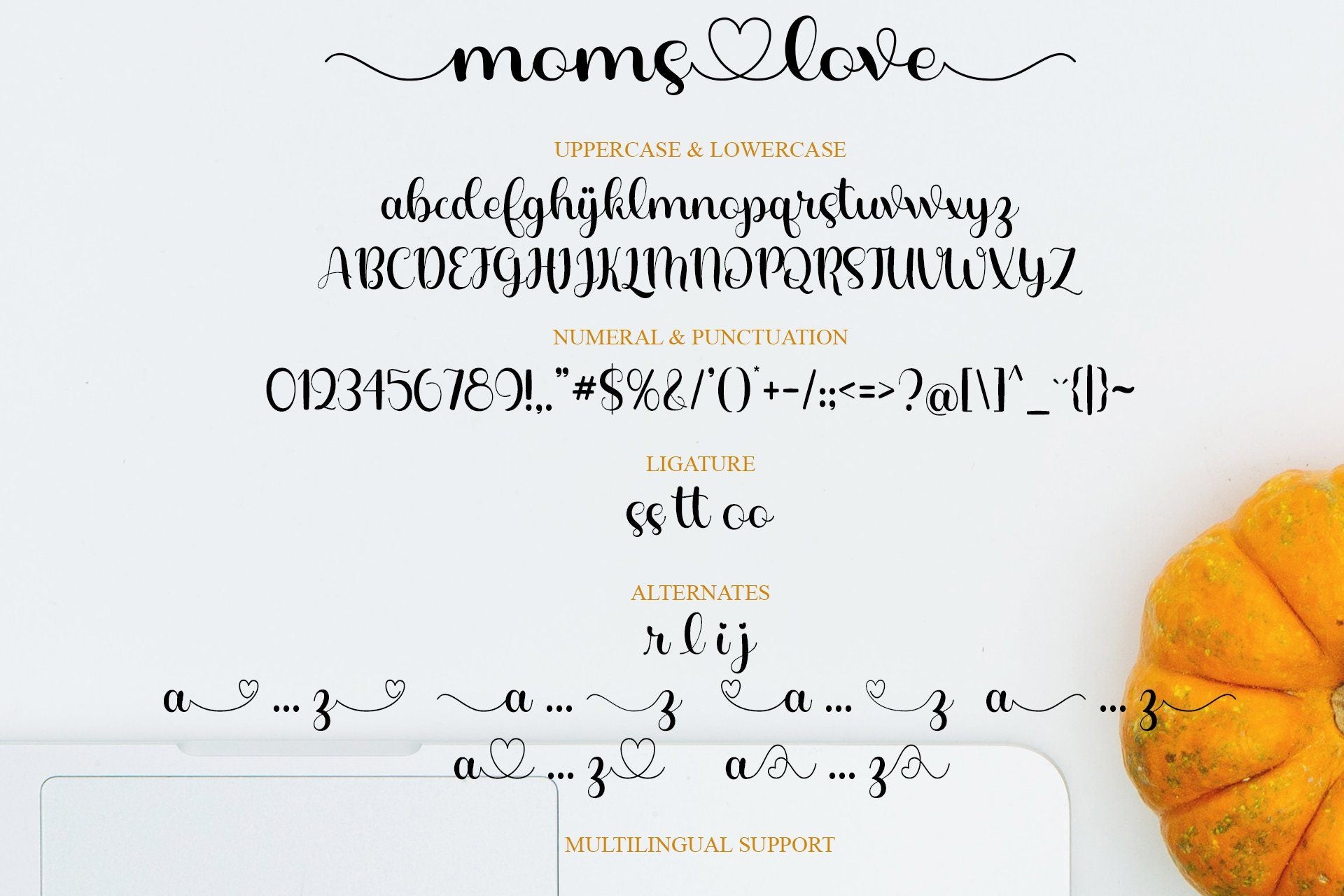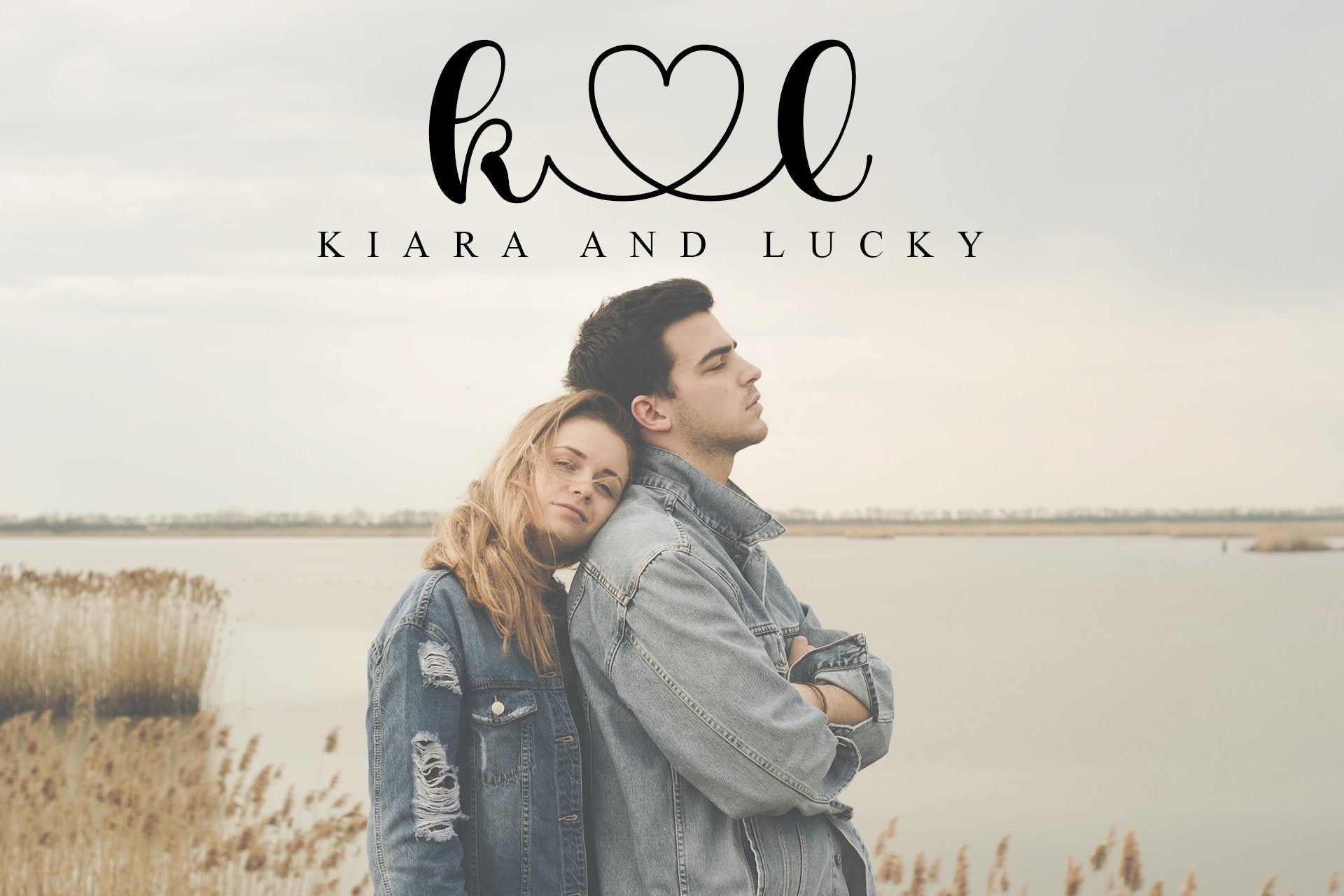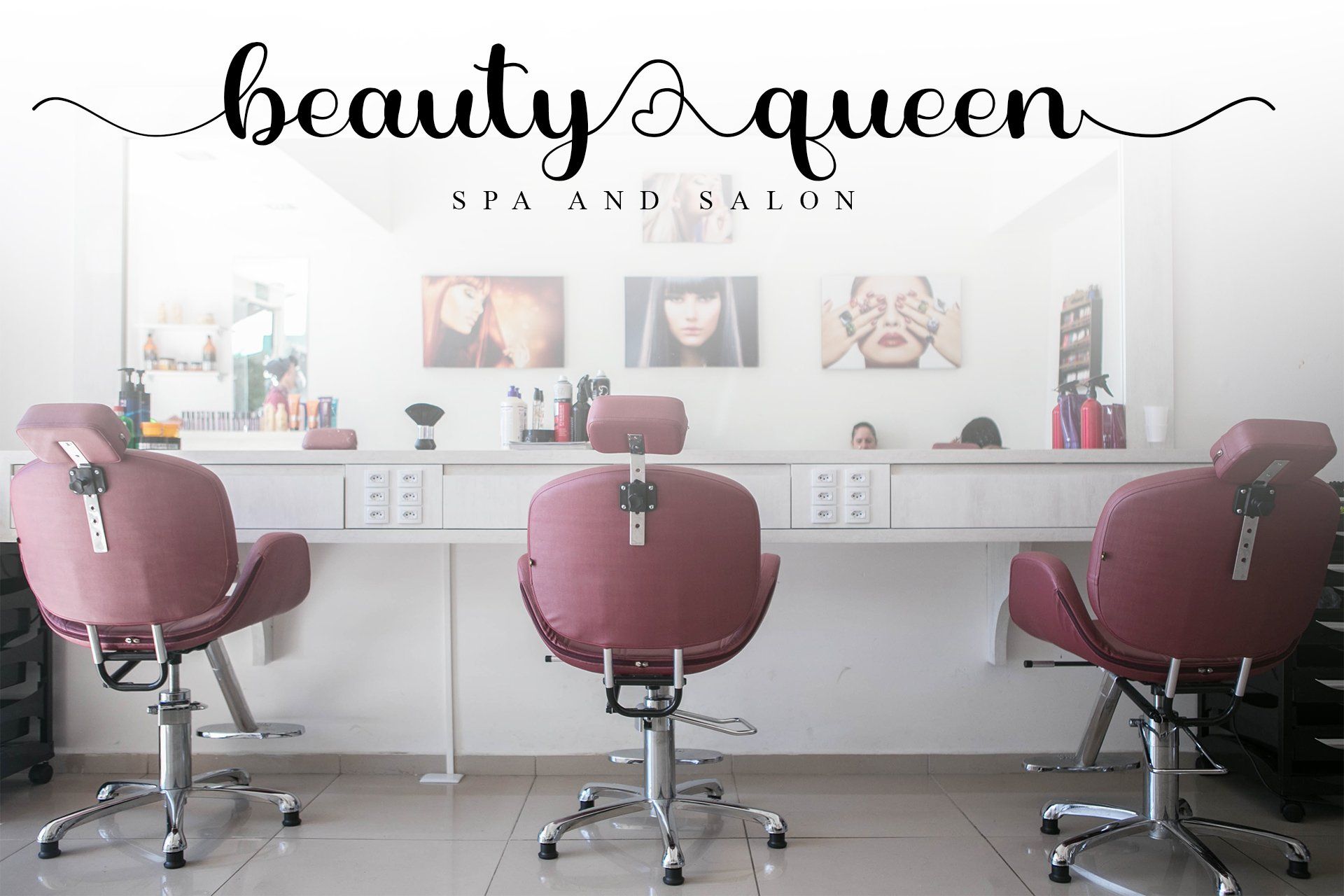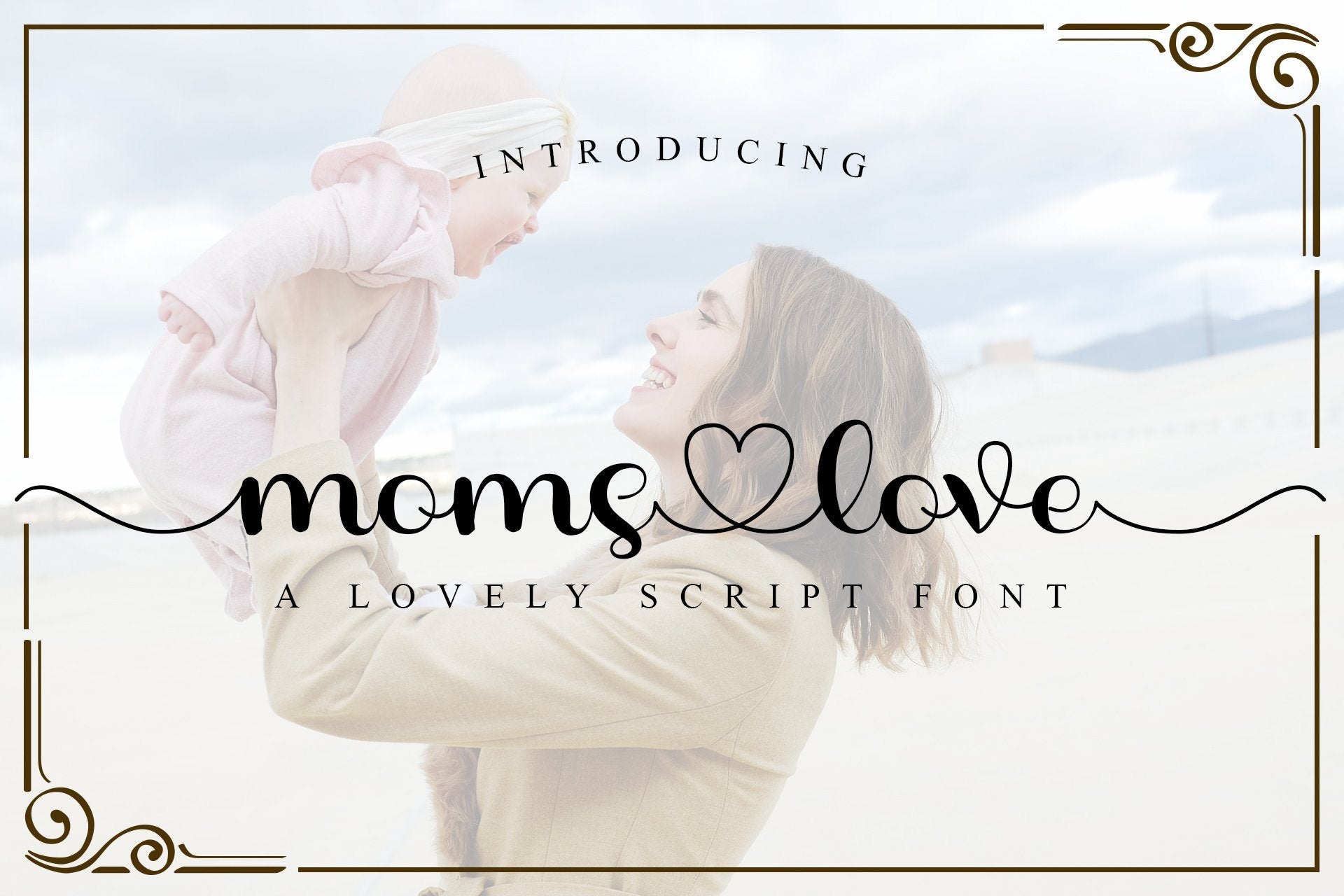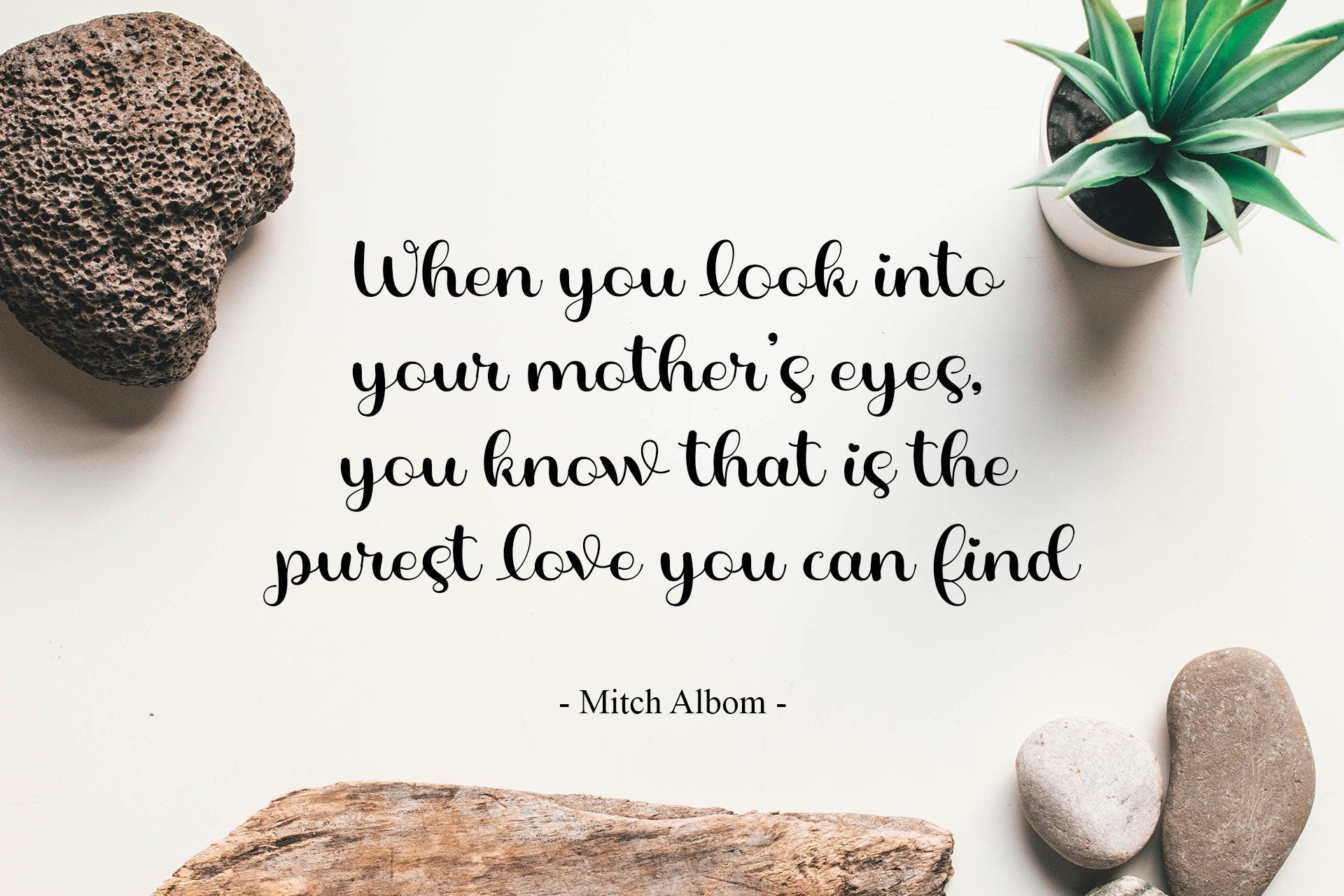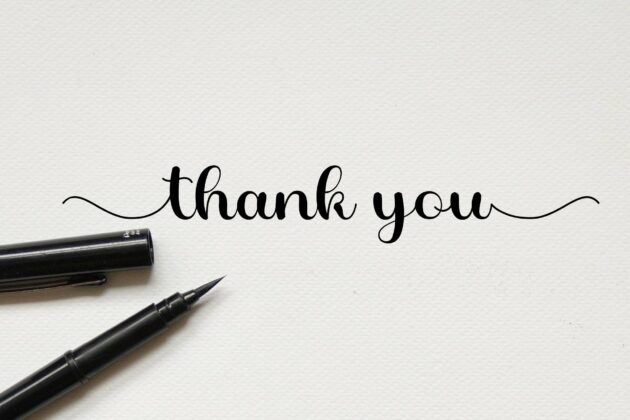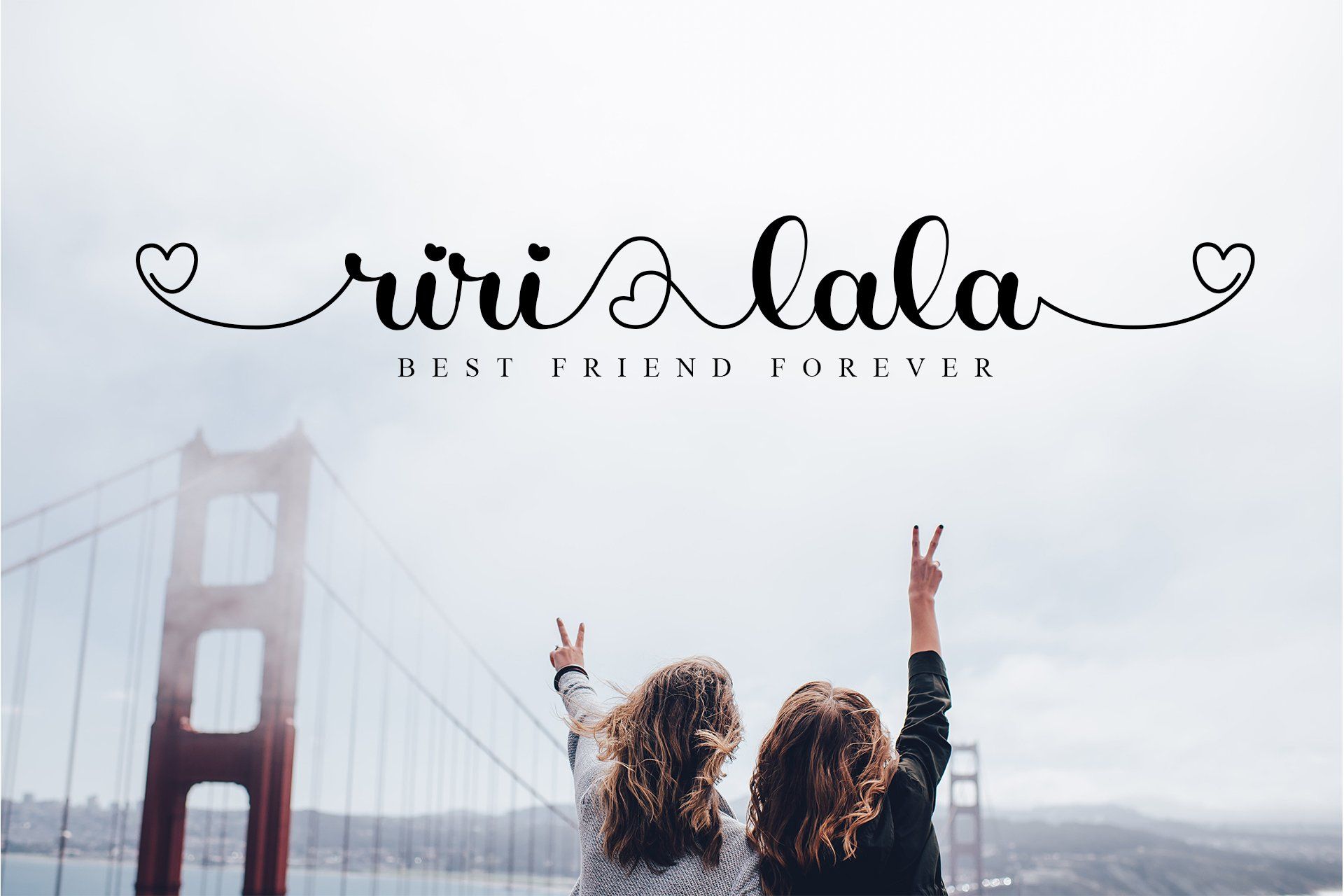
Moms Love
Hello To commemorate mother’s day we present you with a mother themed font. This font has a different swash at the front and at the end of each letter and in each letter it has a heart connector to connect each word, of course this will beautify any designs that are made. This font is very suitable to be used as a support not only in design with the theme of Mother’s Day but also for other design needs such as making quotes, logos, product brands, greeting cards, or other design needs. Thank You